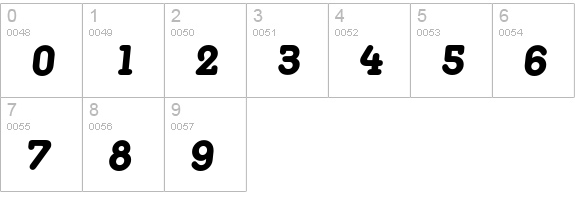
MexicoSerial-Xbold-Italic is a distinctive, italic variant in the MexicoSerial typeface family \xE2\x80\x94 well suited to design and typography projects.
Introducing MexicoSerial-Xbold-Italic font - a bold and stylish typeface that exudes elegance and sophistication. This unique font is perfect for creating eye-catching designs that demand attention. With its sleek lines and modern aesthetic, MexicoSerial-Xbold-Italic is sure to make your projects stand out. The best part? MexicoSerial-Xbold-Italic is available for free download at FontsMarket.com! This means you can access this stunning font without any cost, making it a valuable addition to your design toolkit. Whether you're working on branding, advertising, or any other creative project, MexicoSerial-Xbold-Italic is a versatile choice that will elevate your work to the next level. Don't miss out on this opportunity to enhance your designs with the striking MexicoSerial-Xbold-Italic font. Download it for free today and unleash your creativity like never before!